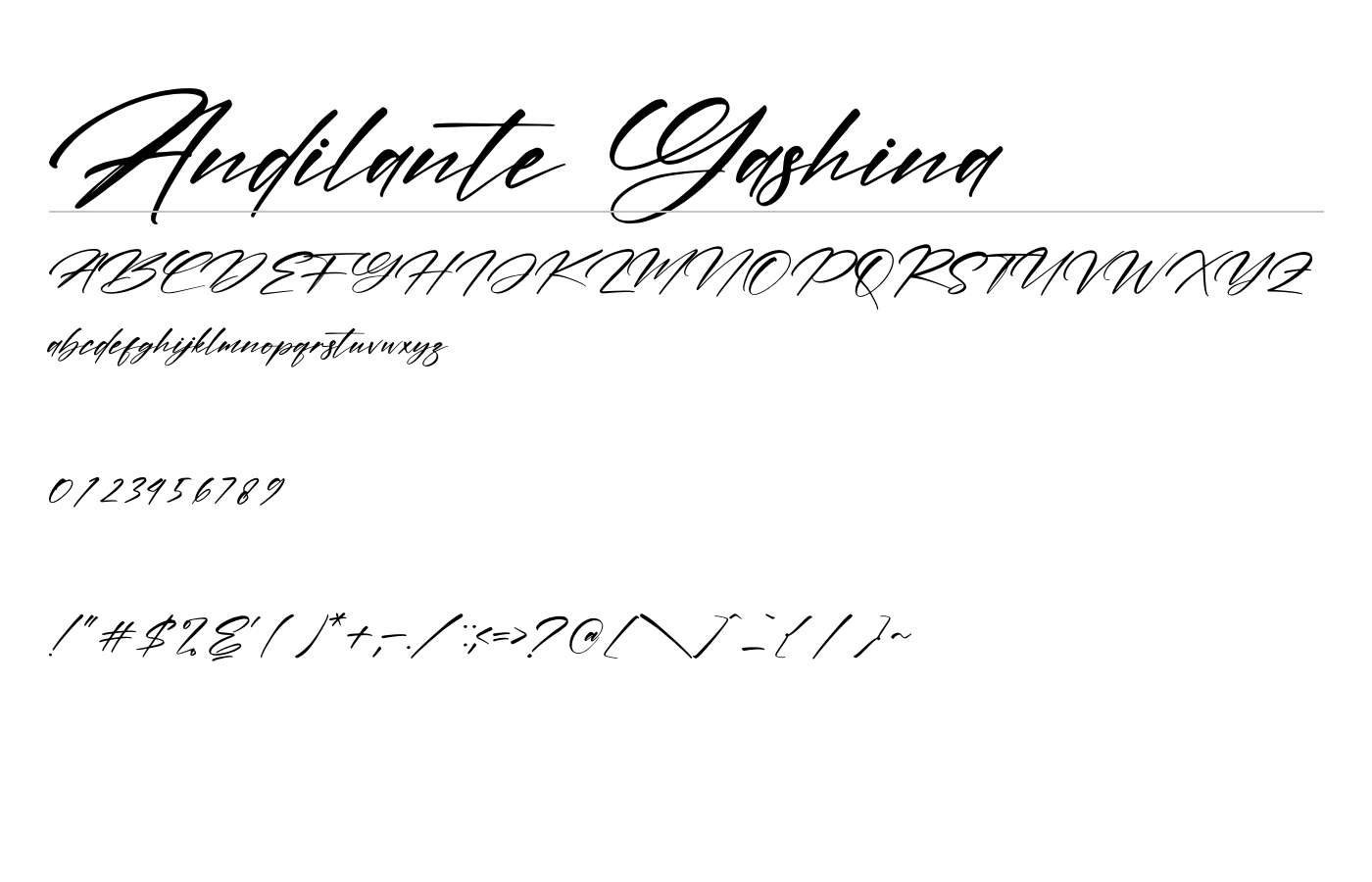
Andilante Gashina is a stylish script font characterized by elegant, flowing strokes that mimic natural handwriting with a modern flair. Its slender, slightly slanted letterforms exhibit a graceful rhythm and fine contrast, making it perfect for sophisticated branding, invitations, and artistic projects that seek a personal yet refined touch. This font works best in headlines, logos, and decorative uses where its distinctive calligraphic charm can truly stand out.
Andilante Gashina Font
About Andilante Gashina Font